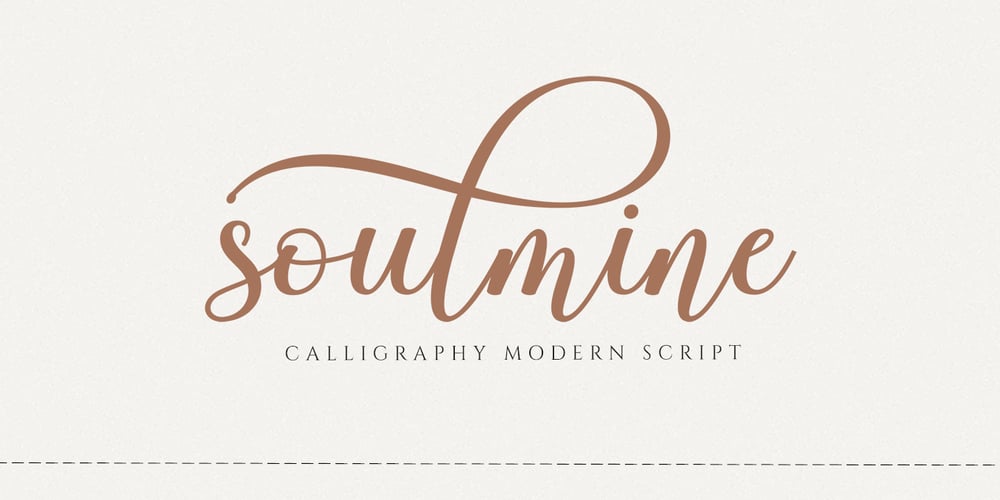
Soulmine Font Family was designed by khaidir and published by Gatype. Soulmine contains 1 styles and family package options. Soulmine Script is a modern calligraphy font, each letter is carefully crafted to make your text look beautiful. With a modern script style, this font will suit a variety of projects, for example: invitations, greeting cards, posters, business cards, quotes, blog headers, branding, logos, fashion, clothing, letters, stationery and more!Soulmine including OpenType Stylistic alternates, ligatures and international language support.To enable the OpenType Stylistic alternative, you need a program that supports OpenType features such as Adobe Illustrator CS, Adobe Photoshop CC (With Glyphs Panel), Adobe Indesign & CorelDraw X6-X7, Microsoft Word 2010 or later versions.Encoded PUAs are also supported. Access font characters compatible with Silhouette Studio, Cricut Design Space. Simply copy and paste alternate characters using Character Map (Windows), Nexus Font (Windows), Font Book (Mac) or a software program such as PopChar (for Windows and Mac)